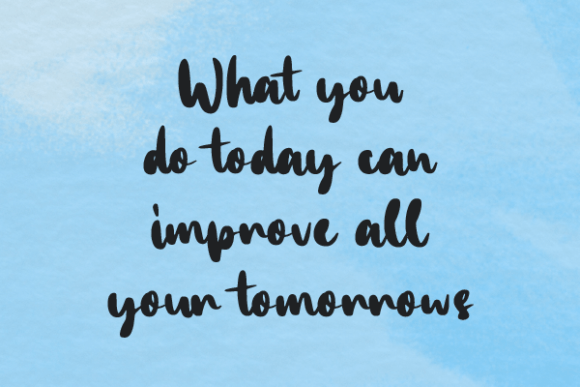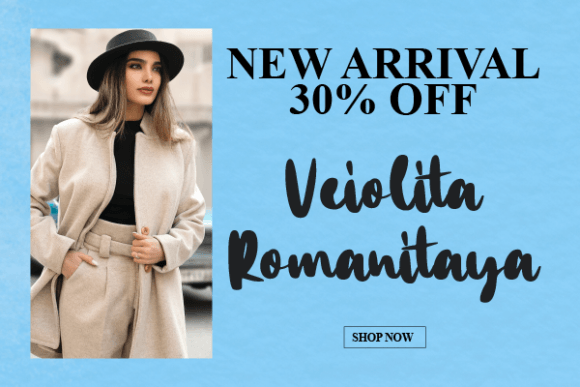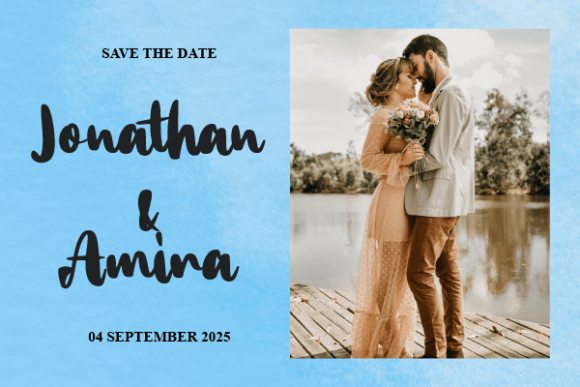
Introduction to Joan Brown Font
Remember that moment when you stumbled upon the perfect font, and your creative project suddenly came to life? That’s exactly what happens when you discover the Joan Brown Font. As a modern, bold script font, it’s the ultimate design resource for any creative project, from wedding invitations to social media posts.
With its incredibly versatile style, the Joan Brown Font is a game-changer for designers looking for a high-quality, free download to elevate their designs. Whether you’re working on a personal or professional project, this font is sure to bring a touch of elegance and sophistication. Plus, its transparent background makes it easy to customize and combine with other design elements.
What makes the Joan Brown Font truly valuable is its ability to convey a sense of personality and style, making it a must-have for any designer looking to take their creative projects to the next level.
Key Features of Joan Brown Font
- Unique, hand-drawn design with a personal touch, ideal for creative projects.
- High-quality font with transparent background, perfect for use on various design resources.
- Includes 6 different font styles with various weights and opacities, suitable for various design needs.
- Perfect for designers, artists, and creatives looking for a unique design element for their project.
Honest Review: Joan Brown Font
As a designer, I’m always on the lookout for high-quality design resources that can elevate my creative projects. The Joan Brown Font is one such resource that caught my attention. I downloaded it for free, and here’s my honest review.
- The font’s unique style and aesthetic are perfect for adding a touch of elegance to any design project.
- The transparent background option allows for seamless integration with other design elements.
- The font is highly legible, making it suitable for a wide range of applications.
- The font may not be suitable for bold or dramatic headlines, as it’s more suited for body text and smaller applications.
- The free version has limited character support, which may be a concern for larger projects.
Overall, I’m impressed with the Joan Brown Font. It’s a great addition to any designer’s toolkit, and its free download option makes it an excellent resource for small to medium-sized projects. While it may have some limitations, its unique style and high quality make it a valuable asset for any creative project.
Tips for Getting the Most Out of the Joan Brown Font
Use the Joan Brown Font for creative projects such as logos, posters, and business cards. Experiment with different font sizes and styles to create a unique and eye-catching design. The Joan Brown Font is a high-quality design resource that is perfect for designers and non-designers alike.
The Joan Brown Font is commonly used for creative projects such as branding, marketing materials, and digital designs. It is also a great choice for designers who need a high-quality font with a transparent background. Whether you’re working on a business project or a personal creative project, the Joan Brown Font is a great design resource to have in your arsenal.
Alternatives to Joan Brown Font
The Great Vibes Font is a high-quality script font ideal for creative projects, such as wedding invitations, greeting cards, and advertisements. Its elegant and modern design makes it perfect for adding a touch of sophistication to your design. When to use: For projects requiring a stylish and elegant font with a transparent background. How it compares: Great Vibes Font offers a more refined and polished look compared to the Joan Brown Font, making it suitable for more formal designs.